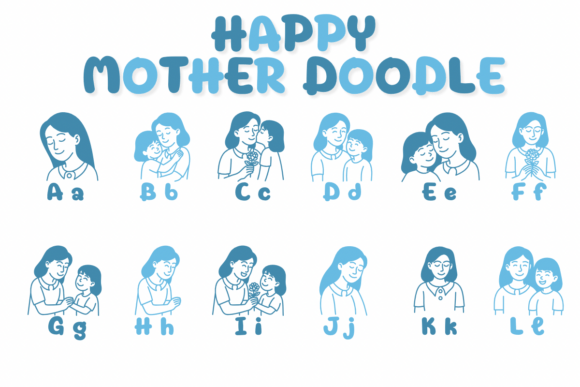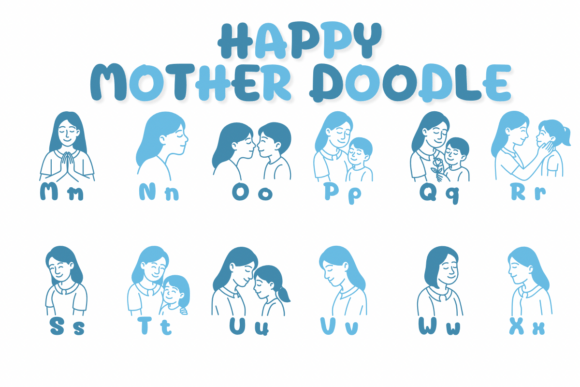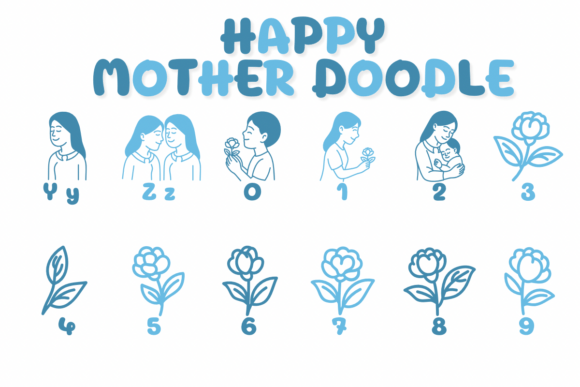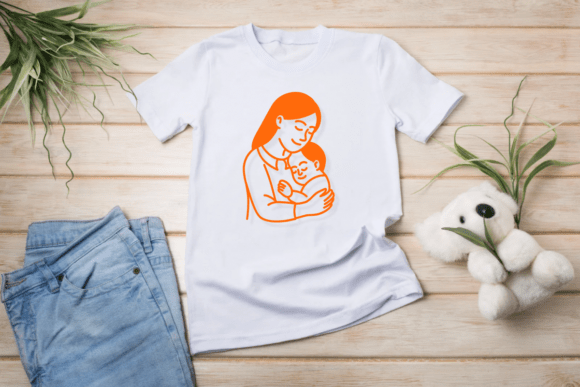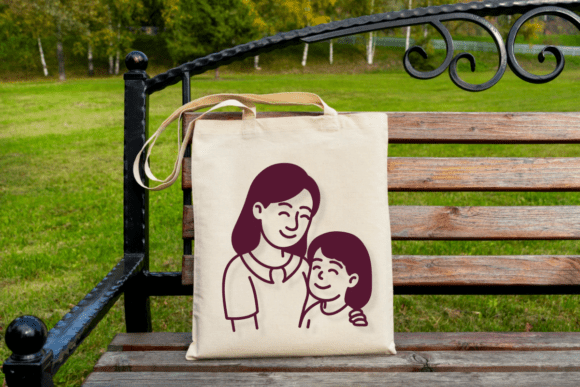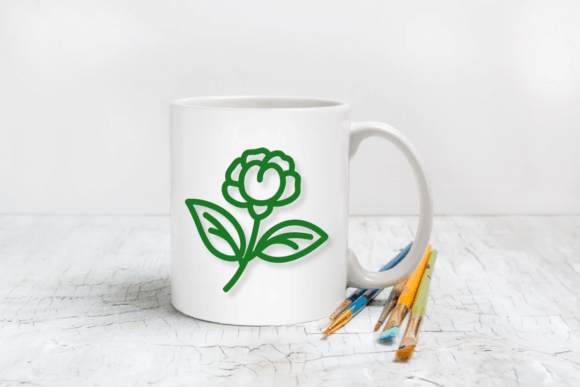
Happy Mother Doodle Font: A Heartwarming Collection for Motherhood Celebrations
Are you looking for a special way to express your love and appreciation for mom on Mother’s Day or any day of the year? Look no further than the Happy Mother Doodle Font, a delightful collection of hand-drawn dingbats that celebrate the beauty of motherhood. This charming font is perfect for creating heartfelt Mother’s Day cards, scrapbooking, family branding, or warm social media visuals that are sure to tug at the heartstrings.
What is Happy Mother Doodle Font?
Happy Mother Doodle Font is a unique and lovingly crafted collection of icons that depict sweet, tender moments between moms and kids. Each icon is carefully hand-drawn to convey the joy, love, and connection that defines the mother-child relationship. From playful moments of laughter and tears to quiet moments of comfort and support, this font captures the essence of motherhood in a way that’s both authentic and endearing.
Features of Happy Mother Doodle Font
- Hand-drawn dingbats: Each icon in the Happy Mother Doodle Font is meticulously hand-drawn to ensure a personal and emotive touch.
- Celebration of motherhood: The font focuses on the heartwarming moments between moms and kids, making it perfect for any motherhood-related project.
- Versatile use: Use it for Mother’s Day cards, scrapbooking, family branding, social media graphics, or any other project that requires a touch of warmth and personality.
- Easy to use: The font is designed to be user-friendly, allowing you to easily incorporate the icons into your designs.
Happy Mother Doodle Font is a treasure trove of creative possibilities for designers and crafters. Whether you’re creating custom Mother’s Day cards, designing scrapbook pages, or developing branding materials for family-related businesses, this font offers a unique and engaging way to connect with your audience. The icons can be used to:
- Create eye-catching social media graphics that celebrate motherhood.
- Design personalized Mother’s Day cards and gifts.
- Develop branding materials that convey warmth and approachability.
- Enhance scrapbooking and journaling projects with meaningful icons.
Why Choose Happy Mother Doodle Font?
In a world where digital communication dominates, the Happy Mother Doodle Font offers a refreshing way to add a personal touch to your designs. Here are a few reasons why you should consider using this font:
- Emotional connection: The font’s hand-drawn icons create an instant emotional connection with your audience, making your designs more relatable and engaging.
- Unique style: The Happy Mother Doodle Font boasts a distinctive style that’s both playful and heartwarming, setting it apart from more generic fonts.
- Time-saving: With a comprehensive collection of icons at your fingertips, you can quickly and easily find the perfect image to convey your message.
The Happy Mother Doodle Font is a beautiful and heartfelt collection of hand-drawn dingbats that celebrate the love and connection between moms and kids. With its versatile use, emotional resonance, and unique style, this font is perfect for designers and crafters looking to create meaningful and engaging projects. Whether you’re designing for Mother’s Day or simply want to express your appreciation for mom, the Happy Mother Doodle Font is sure to bring a smile to her face.